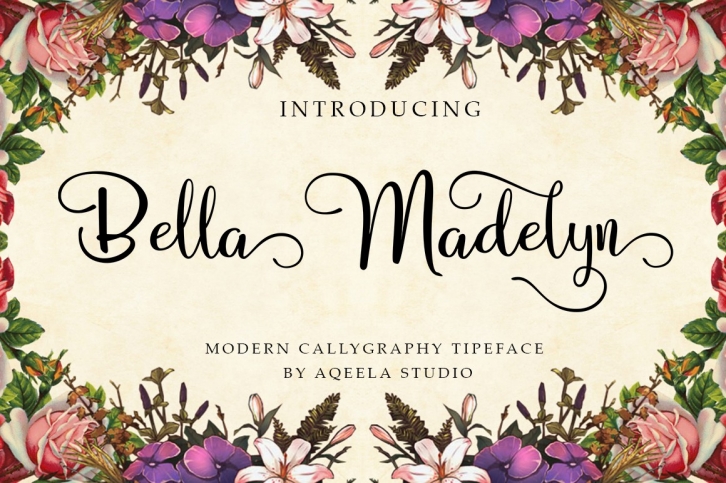
Bella Madelyn Script is a gorgeous font that was realeased on August 11, 2018. The font can be used in many style contexts and design environments. Perfect for invitations, magazines, websites, logos, and more! It was designed by Aqeela Studio and the file size is 8.84 MB. Thanks for checking out this font!